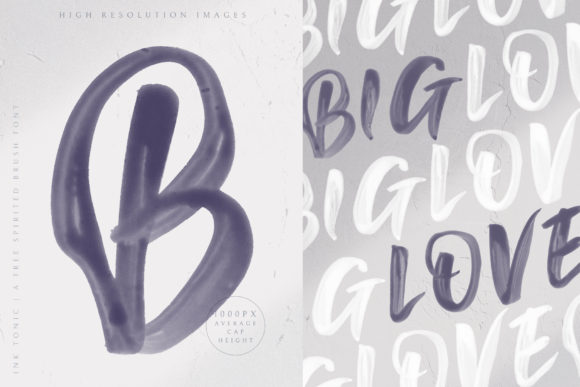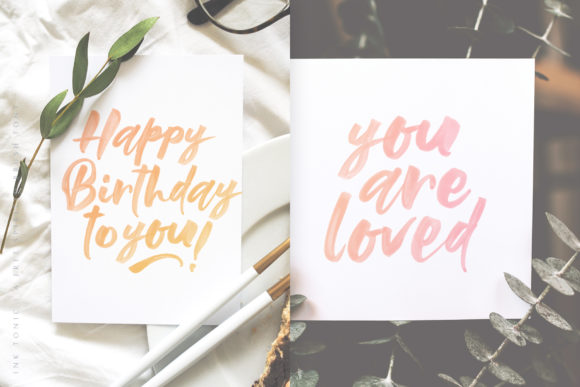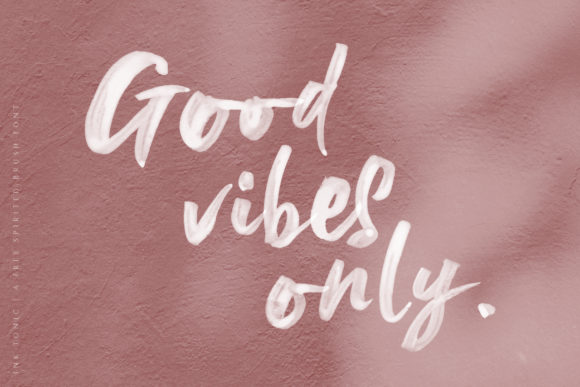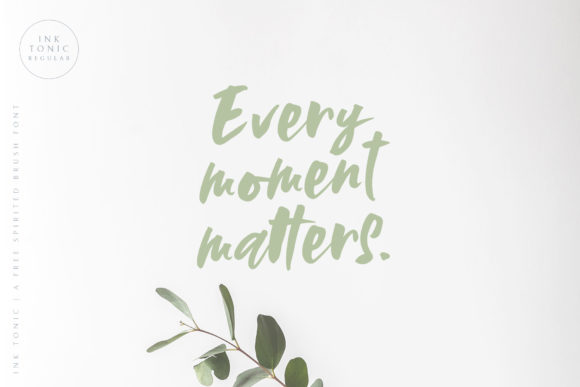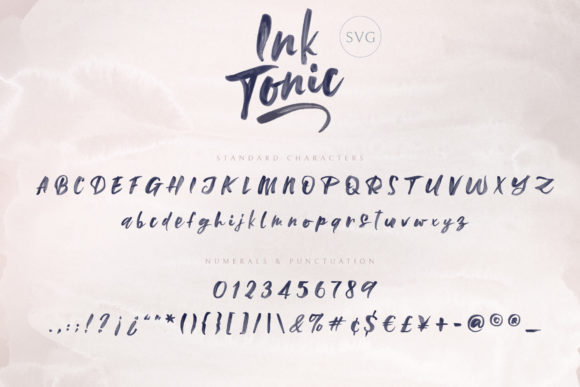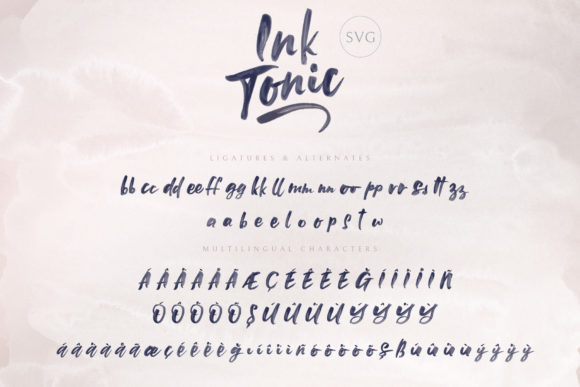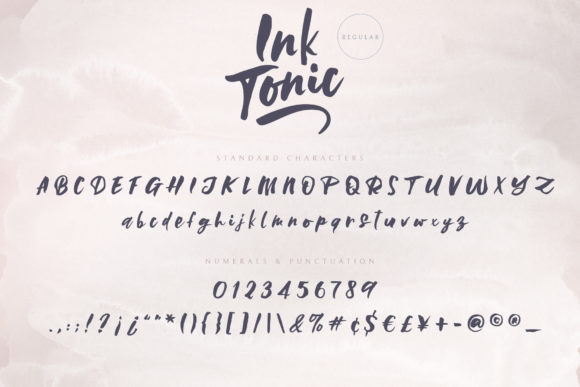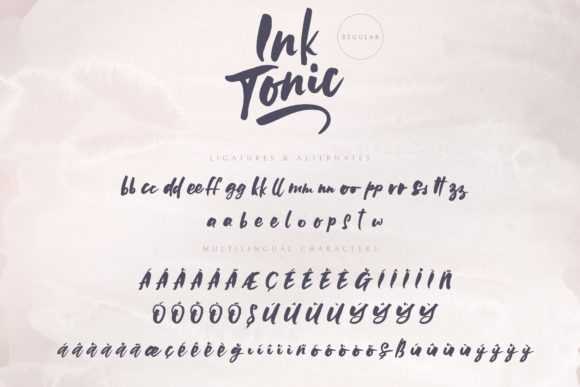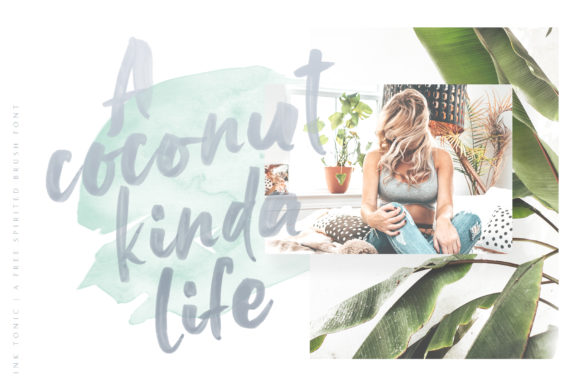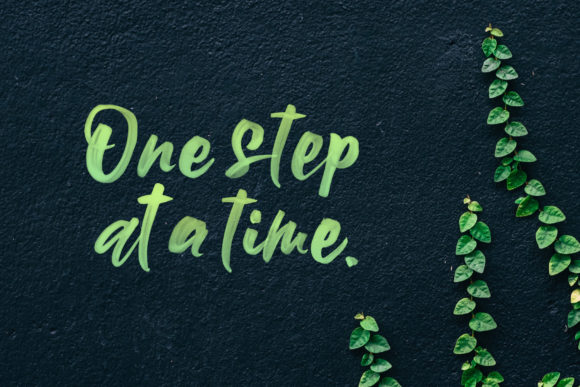
Ink Tonic Font
About Ink Tonic Font
Ink Tonic is a lovely, flowing handwritten font, designed with the help of a sweet brush pen. Fall in love with its incredibly versatile style and use it to create gorgeous wedding invitations, beautiful stationary art, eye-catching social media posts, and much more!